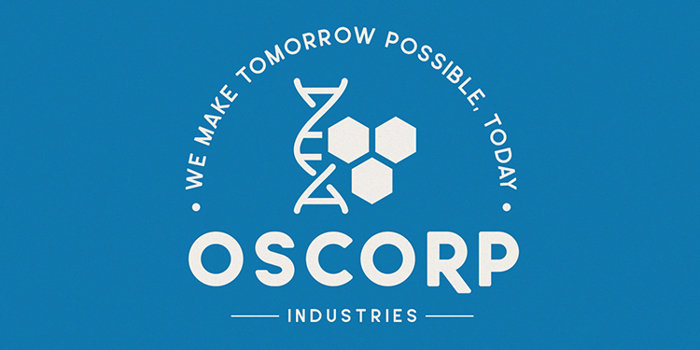
Leo SemiRounded Font
Leonardo Semi Rounded is the second version of the Leonardo family, a modern sans serif with a geometric touch and semi rounded corners. It comes in 10 weights, clean and modern caps, thereby creating more variability. Weights: Thin, UltraLight, Light, Regular, Medium, SemiBold, Bold, ExtraBold, Black, Heavy